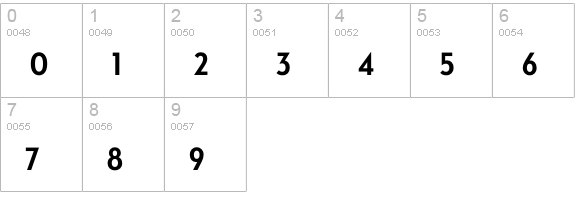
Neutraface Condensed Bold Font Details
Neutraface Condensed Bold is a strong, high-contrast, condensed-width variant in the Neutraface typeface family \xE2\x80\x94 well suited to headlines, attention-grabbing titles, and strong calls-to-action.
Neutraface Condensed Bold is a modern and sleek typeface that exudes confidence and sophistication. Its condensed design makes it perfect for creating impactful headlines and bold statements. The thick, strong lines of this font command attention and convey a sense of strength and authority. This font is ideal for a wide range of design projects, from branding to advertising to editorial layouts. Its clean and minimalist appearance gives a professional and polished look to any design. Best of all, Neutraface Condensed Bold is available for free download at FontsMarket.com. So whether you're a seasoned designer looking to add a powerful font to your collection or a beginner searching for the perfect typeface for your project, Neutraface Condensed Bold is a fantastic choice that won't cost you a penny. Download it today and elevate your designs with this impressive font.